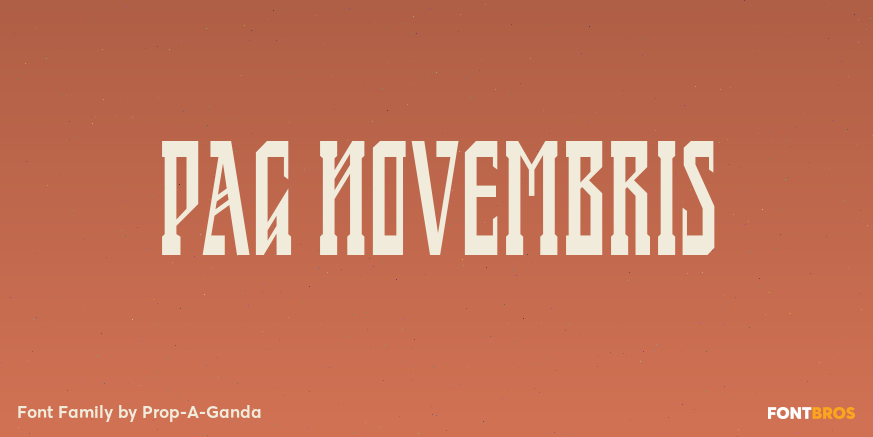
HomeFont BrosArt Deco (1910-1935)PAG Novembris Art Deco (1910-1935)Sans Serif PAG Novembris FacebookXPinterestWhatsApp 1 of 1 About PAG Novembris Inspired by and based on retro propaganda posters, movie posters, shopfront lettering & advertisements in the early 20th century. This is perfect font for your retrostyle project.  DOWNLOAD NOW People also explored Monogram V | Monofont Caps V Font Fall Harvest Font Portsmouth Second Fleet Birthday Font Best Friends Font Cute Butterfly Monogram Font Manhattan Font Young Baily Trio Font Hai Brush Font 208 0 TagsPAG Novembris Font Previous articleLeisure ScriptNext articleMaine LEAVE A REPLY Cancel reply Comment: Please enter your comment! Name:* Please enter your name here Email:* You have entered an incorrect email address! Please enter your email address here Website: Save my name, email, and website in this browser for the next time I comment. Personal Use Free Angola Beach Personal Use Free Read more about this font Calega Personal Use Free Read more about this font Sathscha Personal Use Free Read more about this font Marthissa Personal Use Free Read more about this font BLOG Fonts That Capture the Spirit of New York City New York City is more than just a place—it’s an experience, a rhythm, a visual language... Free Fonts Risk: Why Free Fonts Can Be Dangerous for Designers The 10 Best Handwriting Fonts to Add Personality to Your Designs To increase your work productivity, choose the most readable fonts.